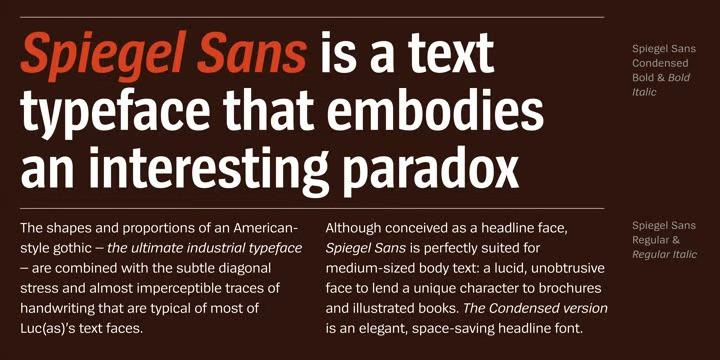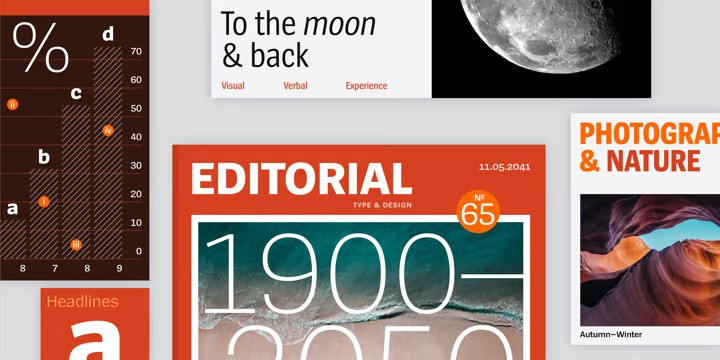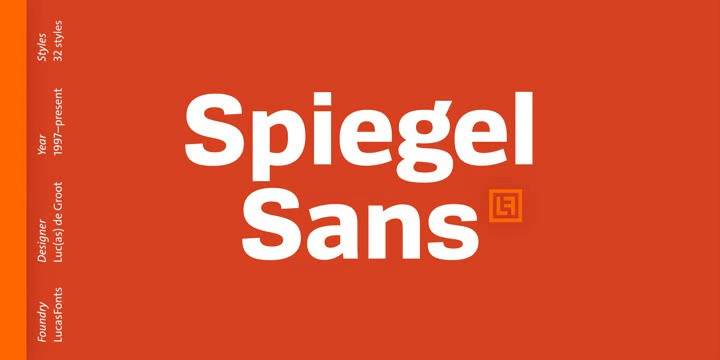
Spiegel Sans Font
Hello Everyone, introduce our new product, Spiegel Sans Font Family. Spiegel Sans combines the shapes and proportions of an American-style gothic – the ultimate industrial typeface – with subtle diagonal stress and almost imperceptible traces of handwriting.